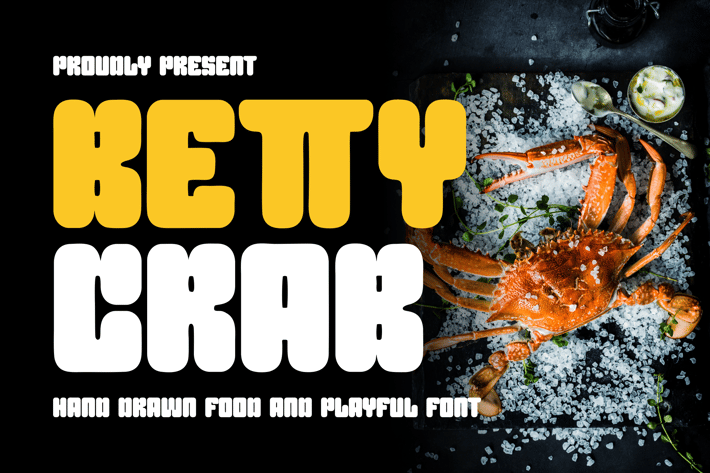
Betty Crab - Hand Drawn Food And Playful Font
Introducing our new product Betty Crab Font Hand Drawn Food And Playful Font
Betty Crab Font Modern Font is a Hand drawn bold and authentic display font. The font is suitable for any branding project like logo, t-shirt printing, esport, and many more.
outstanding in a wide range of contexts.
Betty Crab Uppercase
* Betty Crab Ligature